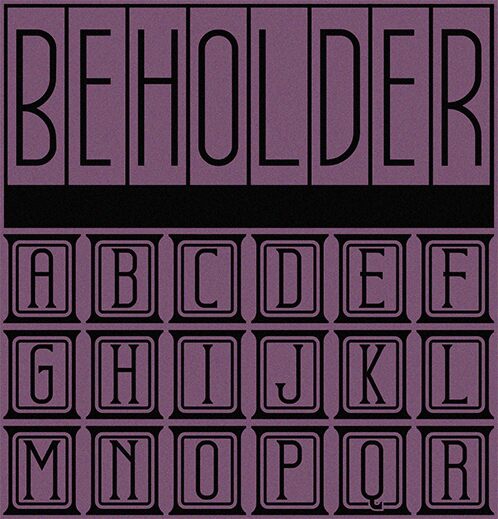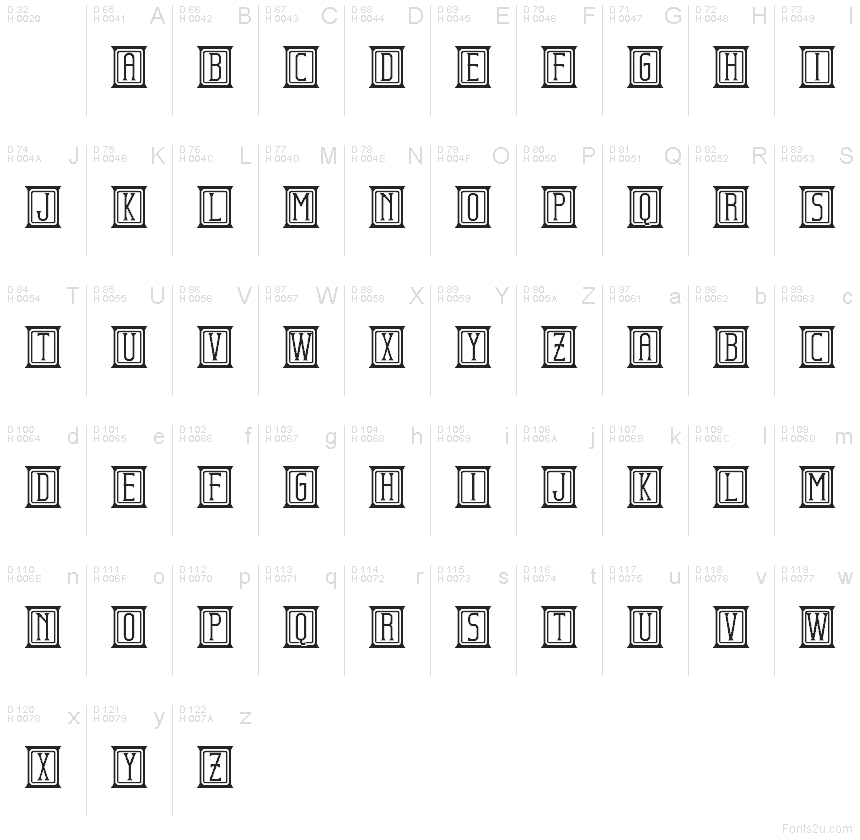
Beholder Capitals Condensed font by Vladimir Nikolic is a classical decorative, geometric, and condensed font with intricate details. Structured all the way, this free display font presents architectural inspirations with its vintage appeal that screams elegance. This condensed font would be easily recognizable in any design by users.
Use Beholder Capitals Condensed for posters, magazines’ front covers or spreads, book covers, flyers, cards projects, album art work designs and more. Use it for billboard or sign advertisements or even online website headings and banners.